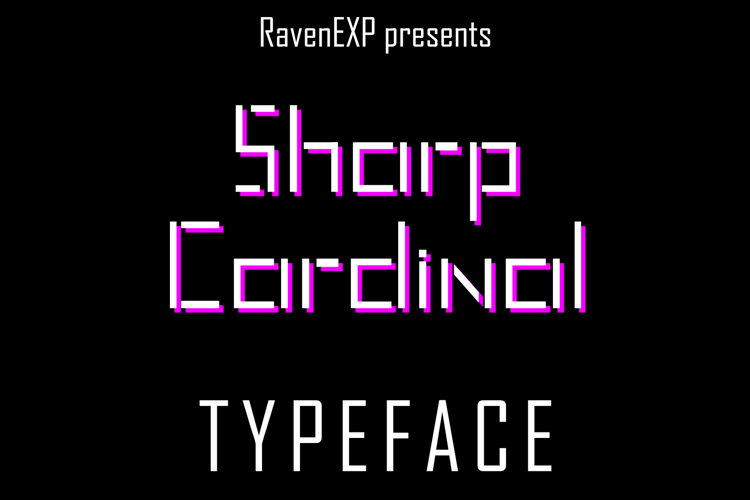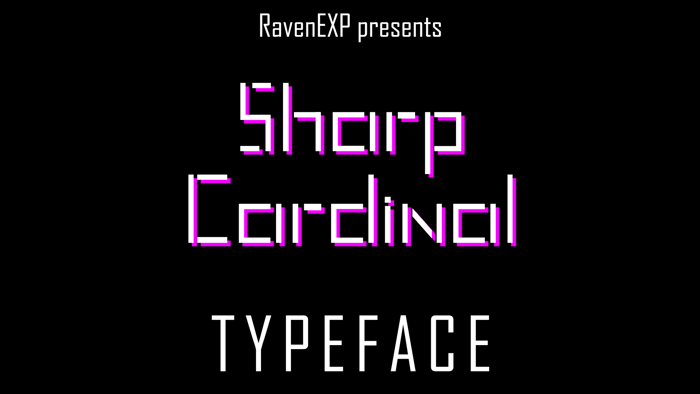
Sharp Cardinal Font
About Sharp Cardinal Font
With Sharp Cardinal I tried to make a font that will benefit from letters with missing lines. The reason is because I see a lot of fonts having random missing lines that simply didn't add anything special to the font.